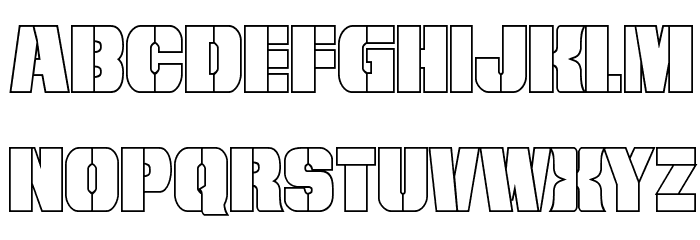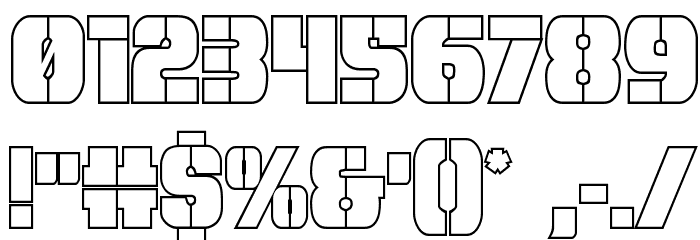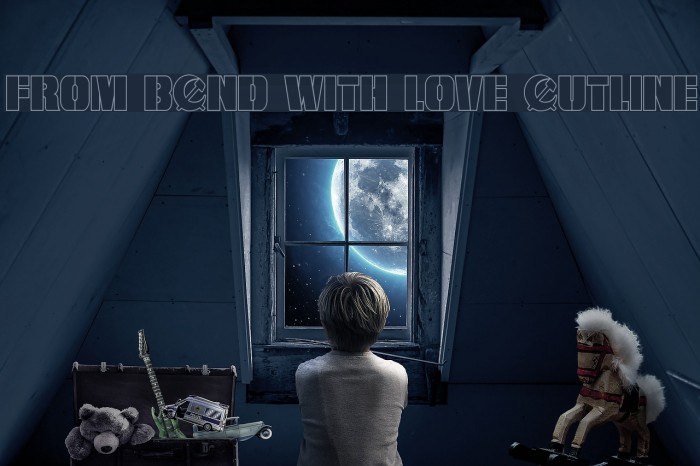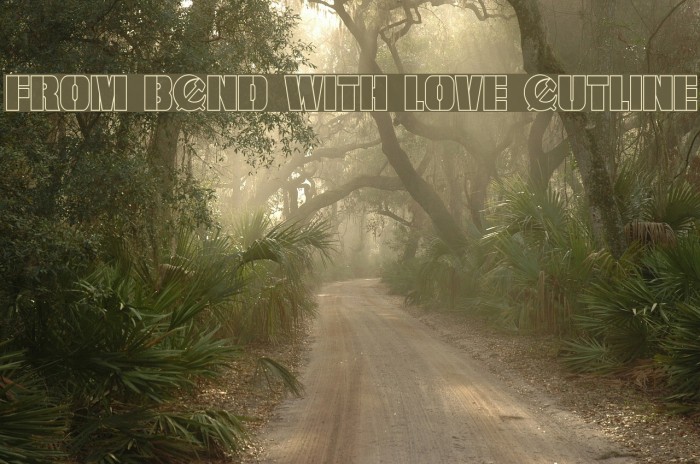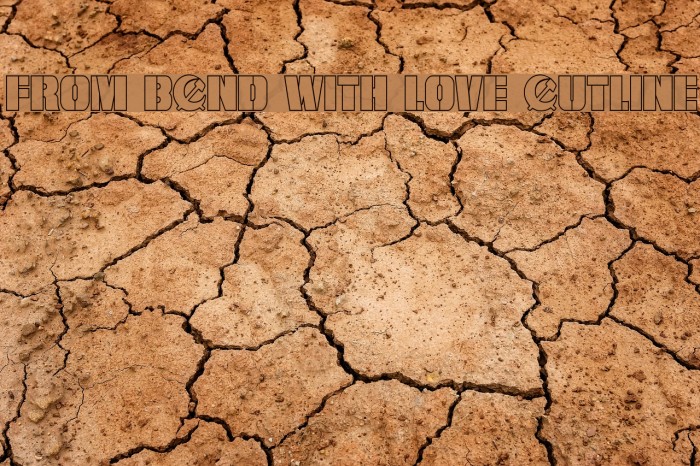
From BOND With Love Outline Font
This font features a bold, geometric design with an outline style that emphasizes its blocky, angular shapes. Each character is constructed with a consistent thickness, giving it a uniform appearance. The letters and numbers are distinctly separated by wide, clear outlines, creating a striking visual effect. The font's design is modern and futuristic, with a strong emphasis on symmetry and alignment. Its unique style makes it stand out, suitable for projects that require a bold statement. The special characters are also designed with the same outline style, ensuring consistency across all elements.
A bold, geometric outline font with a modern, futuristic style.
- Proposed Projects: Ideal for posters, logos, branding, and any design that requires a strong, impactful visual presence.
- Character Spacing: Wide